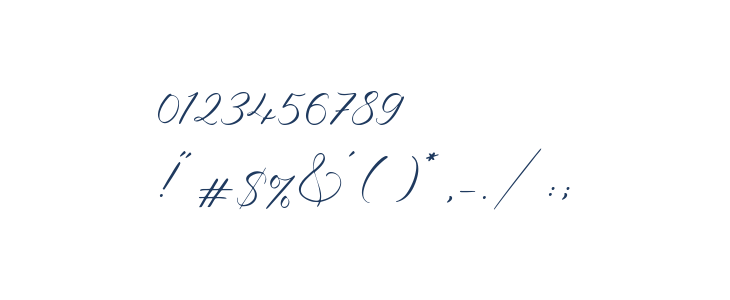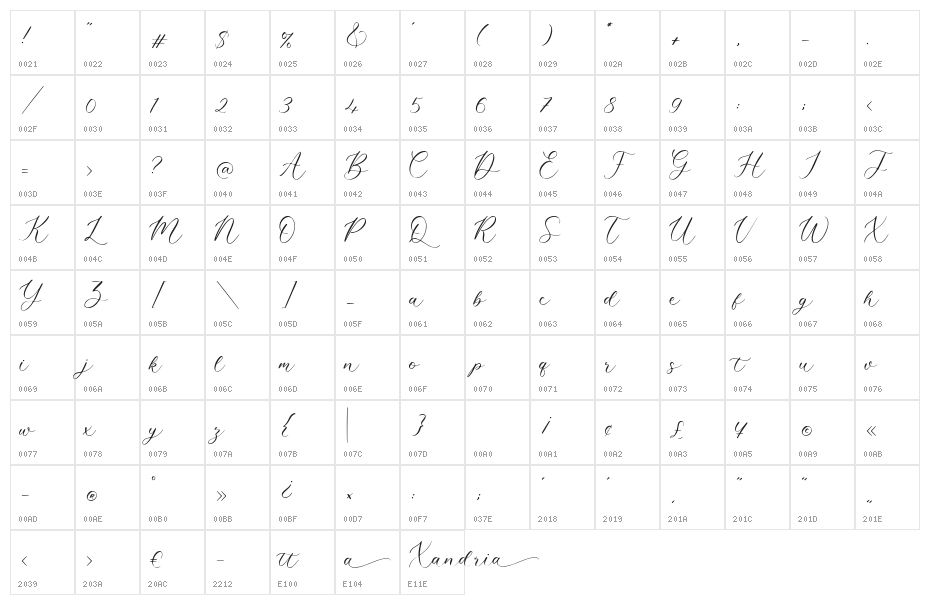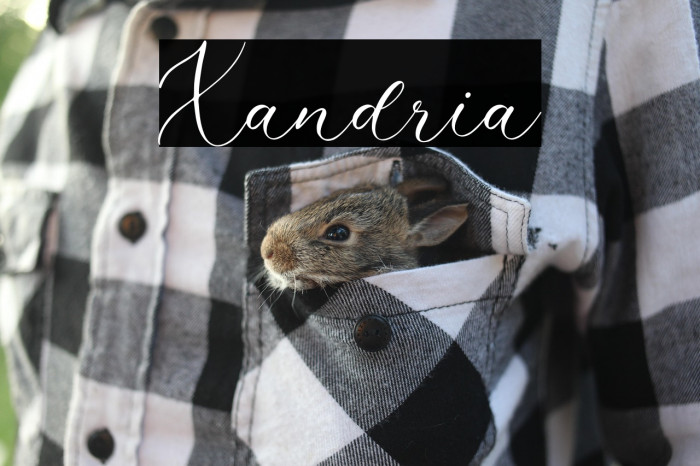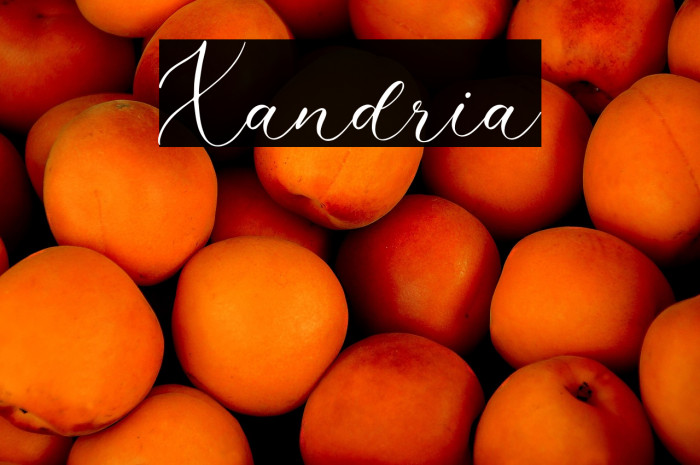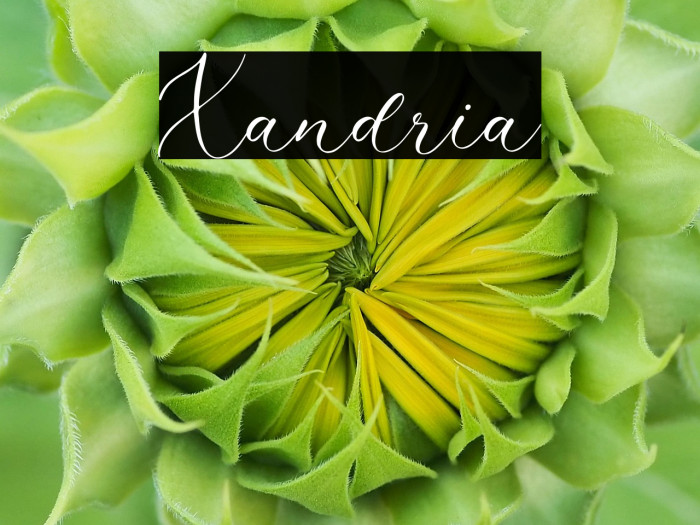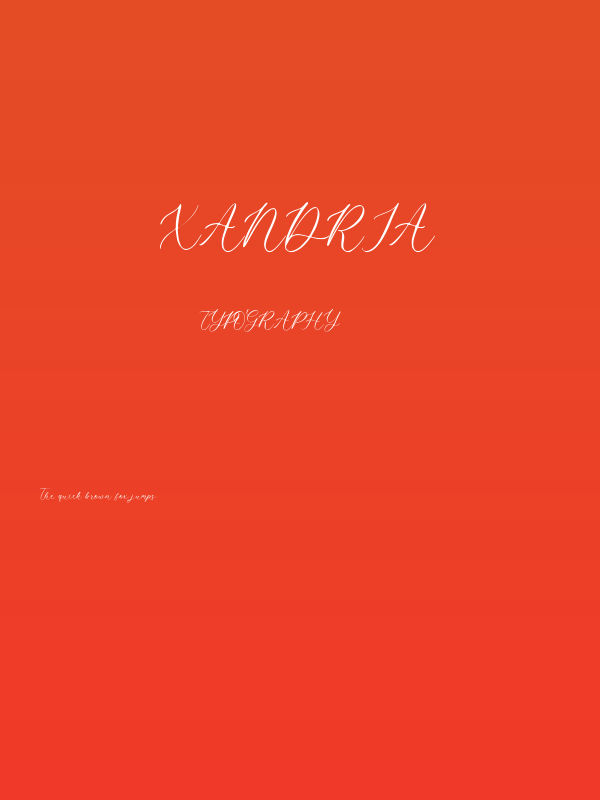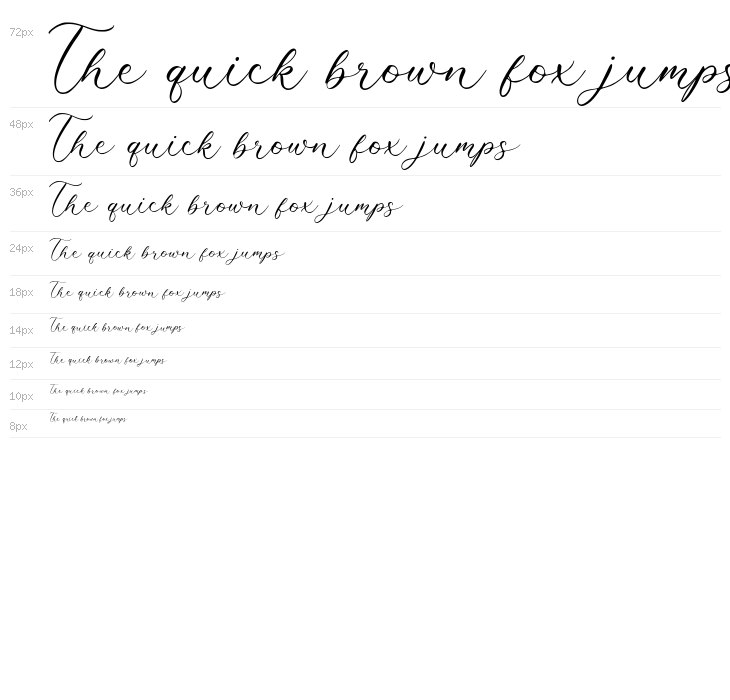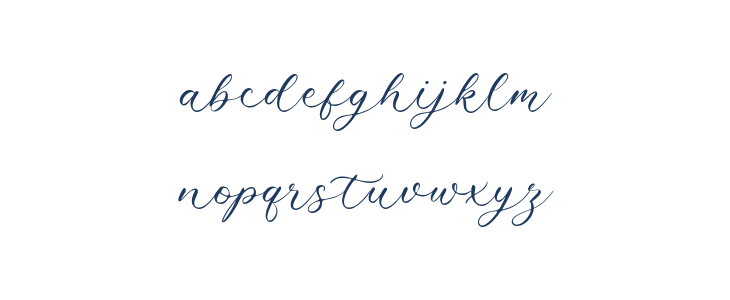
Xandria Font
Xandria Description
This elegant script font features fluid, cursive strokes that convey a sense of sophistication and grace. The uppercase letters are characterized by their sweeping, elongated lines, while the lowercase letters maintain a consistent flow with delicate loops and curves. The numerals are designed with a similar flair, ensuring uniformity across the character set. Special characters are thoughtfully integrated, maintaining the font's overall aesthetic. This font's style is reminiscent of traditional calligraphy, making it ideal for projects that require a touch of elegance and refinement.
Overall StyleElegant, Classic
Use CaseLogos, Invitations, Decorative text
Proposed ProjectsIdeal for wedding invitations, elegant branding, greeting cards, and upscale packaging.